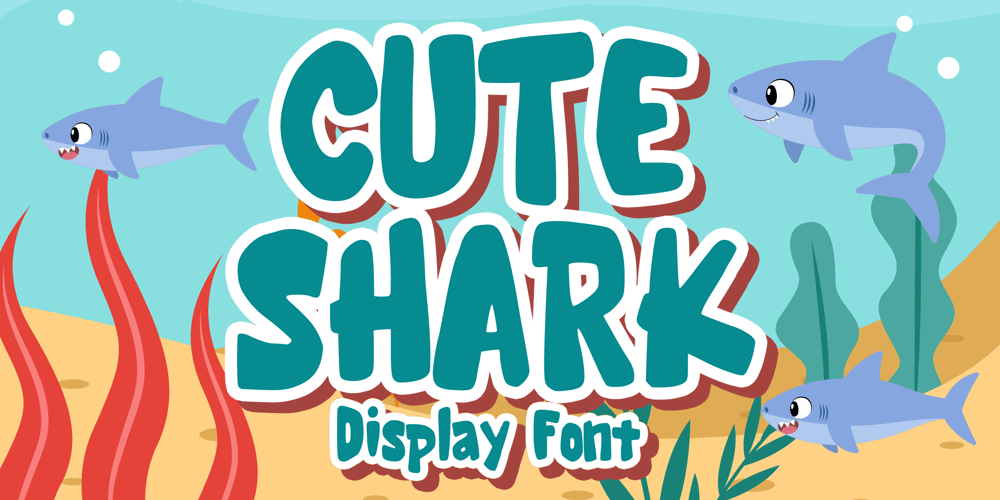
Cute Shark Font Family was designed by Gabriel Valentinus and published by Mvmet. Cute Shark contains 1 styles and family package options. Cute Shark is a cute and playful display font. It will elevate a wide range of design projects to the highest level. You can use this font for many design ideas such as stickers, t-shirt designs, amazing logo designs, magazine or book covers, comics, cartoon drawings, and many more. This font will add a super cool touch to your designs!